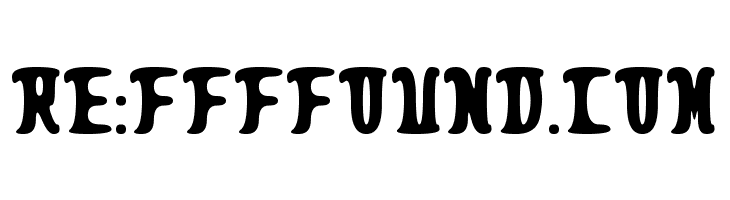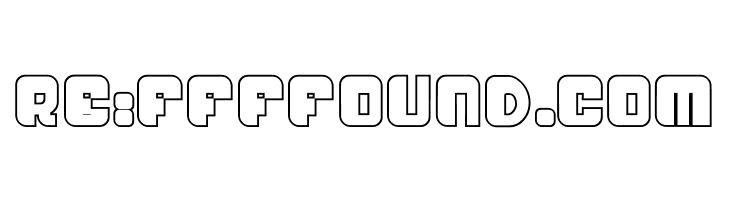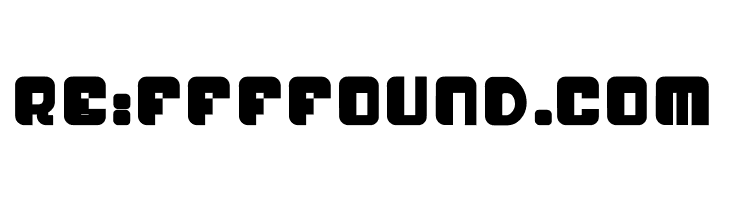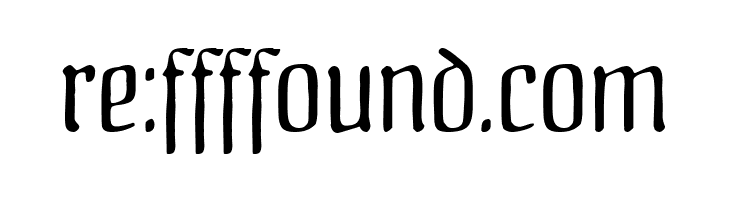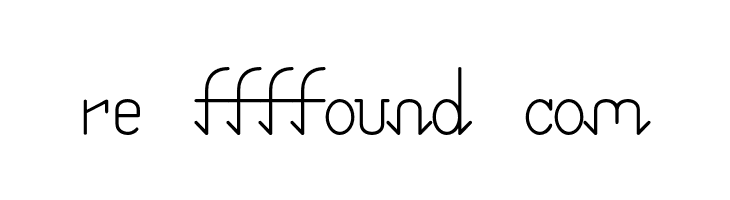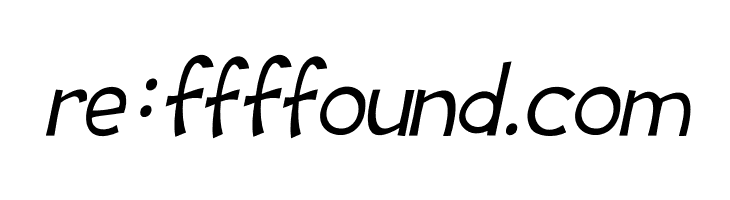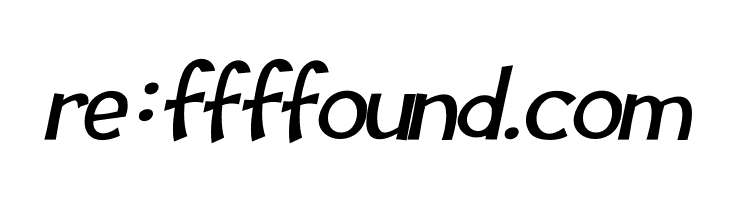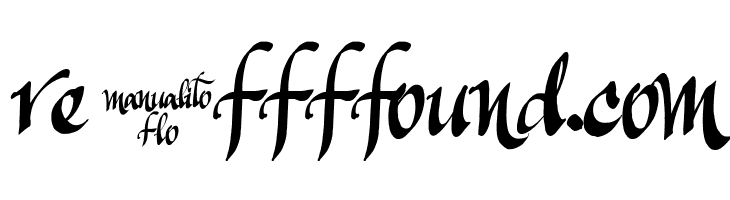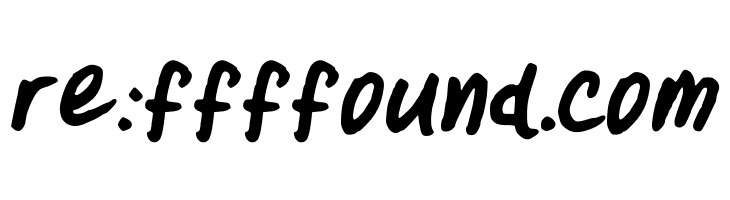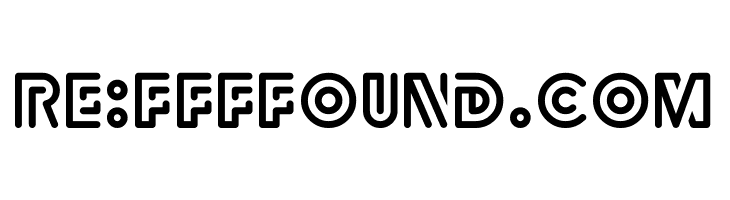
A Gothic-inspired font with ornate uppercase and streamlined lowercase letters.
A playful, italicized font with a cartoon-like, hand-drawn style.
A bold, italicized font with a playful and cartoonish style.
A playful, cartoonish font with irregular, hand-drawn letterforms.
A bold, curvy, and playful font with a handwritten style.
A bold, geometric font with outlined characters and a playful, modern style.
A distressed, hand-drawn style font with textured, irregular edges.
A modern, italicized font with rounded, smooth characters and consistent stroke width.
A bold, italic, and modern font with rounded edges and a slightly condensed style.
A modern, rounded font with a sleek, condensed design.
A bold, rounded sans-serif font with uniform strokes and a modern look.
A modern, rounded font with a clean and approachable design.
A bold, brush-stroke font with a dynamic and artistic style.
An elegant and decorative serif font with high contrast and unique character designs.
A bold, playful handwritten font with a comic book flair.
A playful and humorous font using punctuation marks to create whimsical designs.
A whimsical and playful font with thin, curvy lines and abstract shapes.
A bold, expressive handwritten font with dynamic strokes and a playful style.
A classic serif font with elegant strokes and refined curves.
A modern, continuous line font with fluid, interconnected characters.
An angular, geometric font with a modern and artistic style.
A bold, geometric font with a modern and impactful design.
A bold, gothic-inspired font with sharp, angular characters.